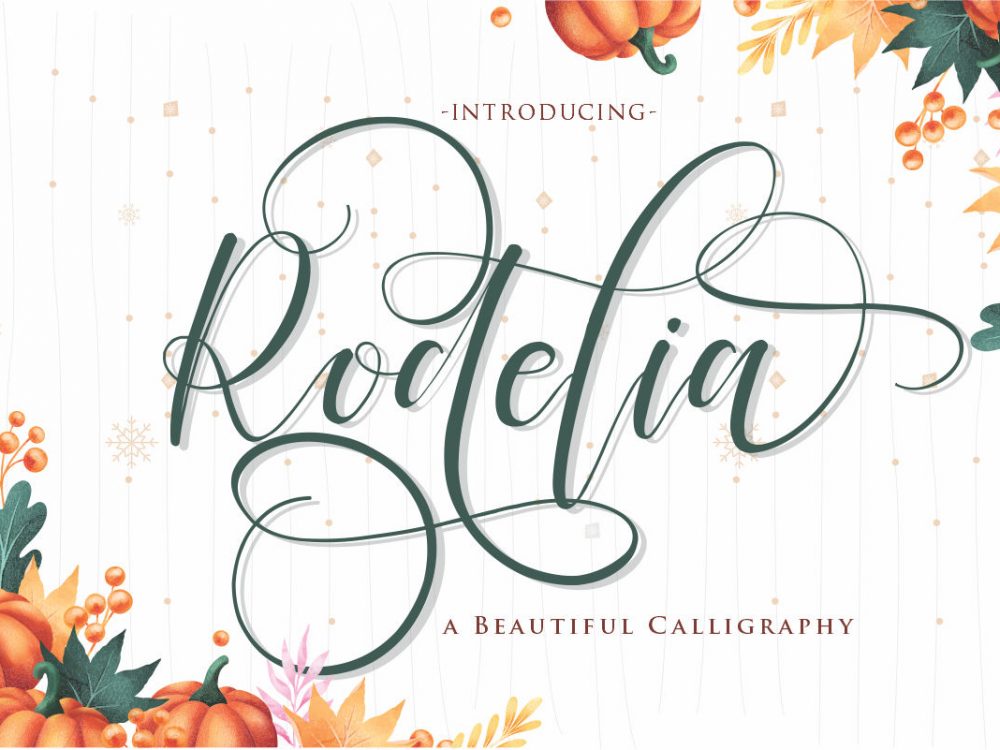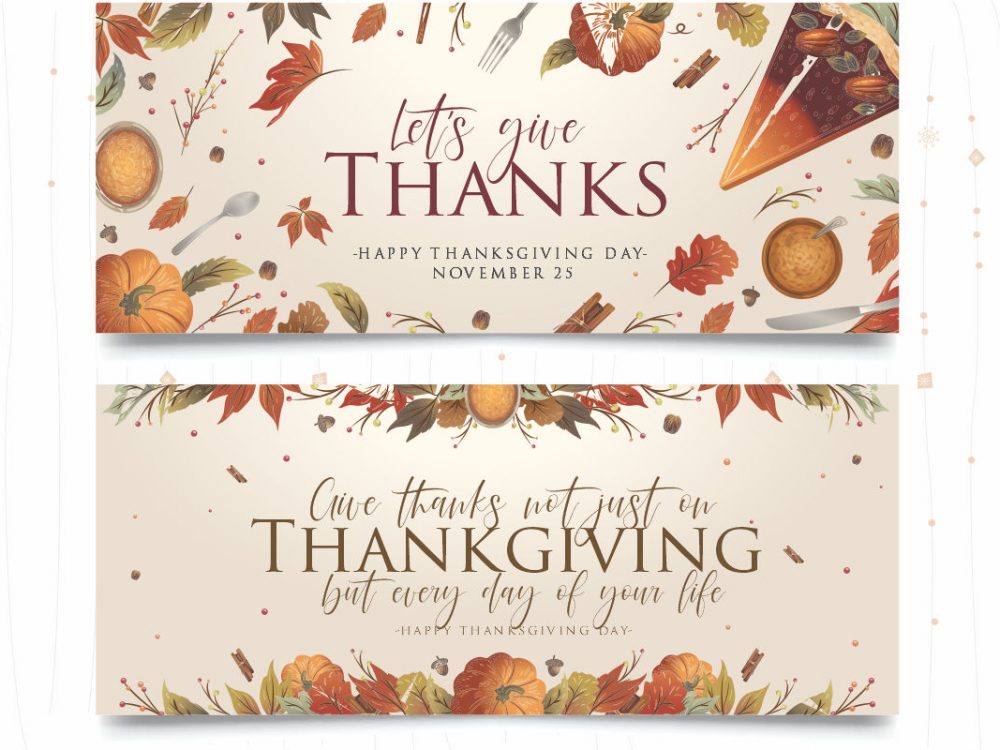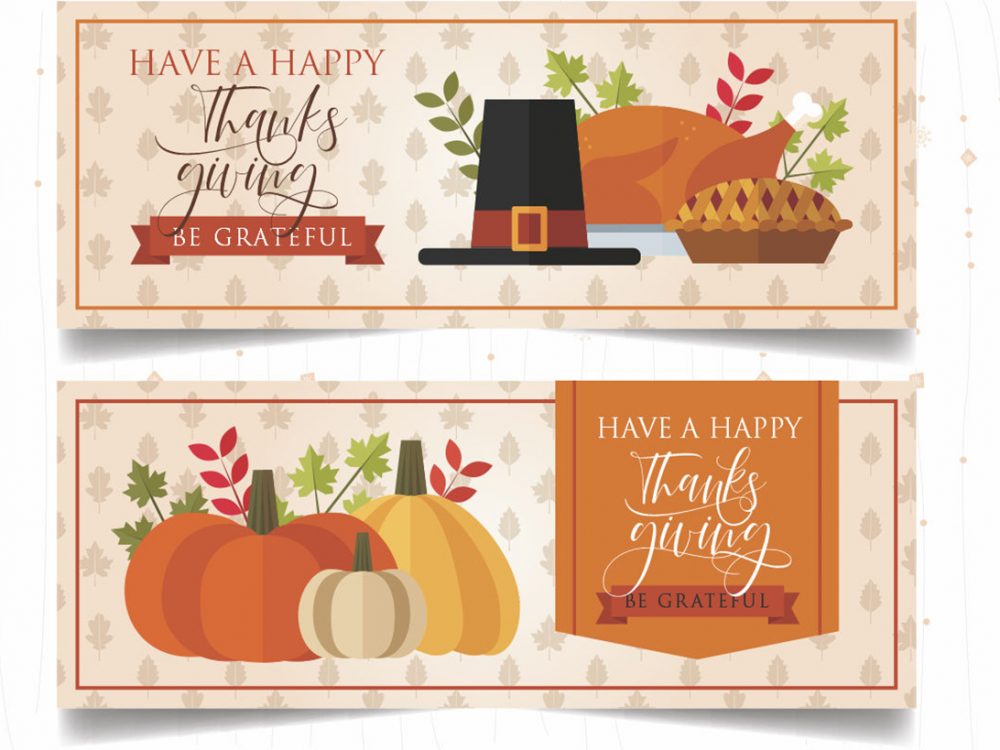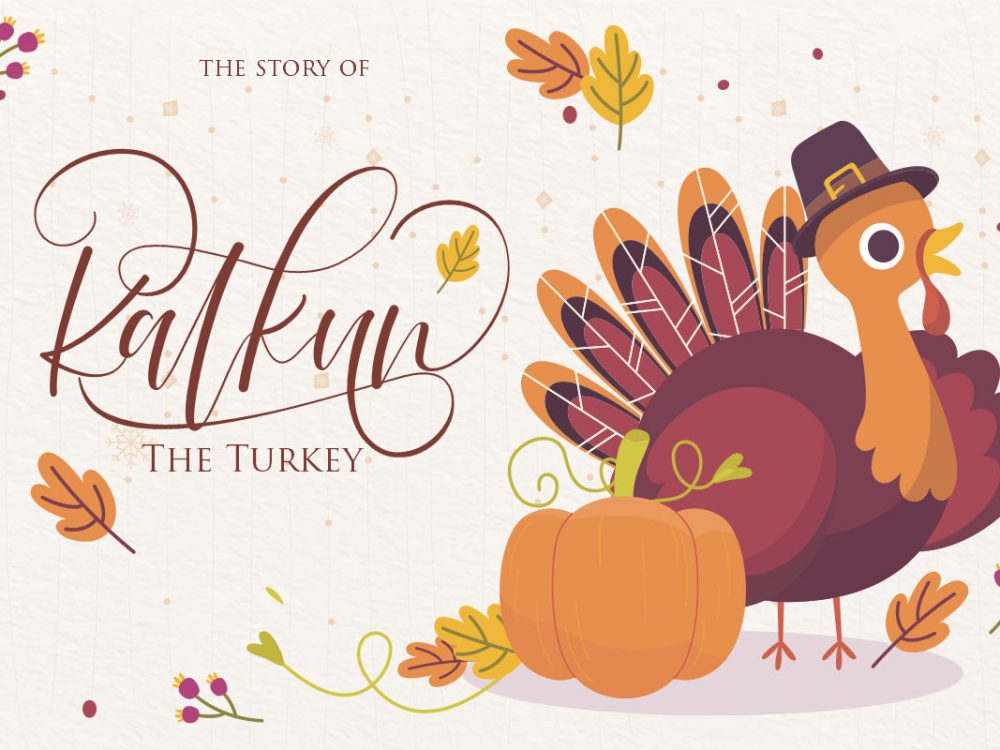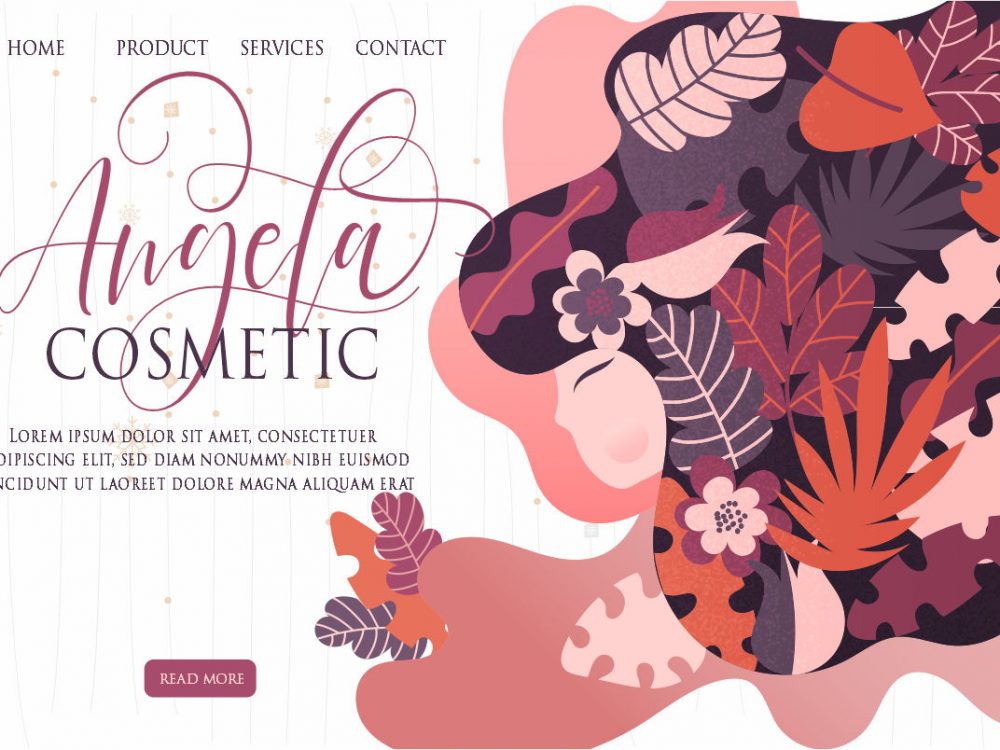
Rodelia Free Font
Rodelia Free Font is an interesting handwritten font with a modern style. This font is very suitable for various design projects that require a quality script calligraphic font. You can use this font to create memorable romantic posters, wedding invitations, greeting cards, branding, flyers, t-shirt and pillow prints, and more. Improve the quality and increase the popularity of your design projects by using this font. If you like it don’t forget to check out the full version.